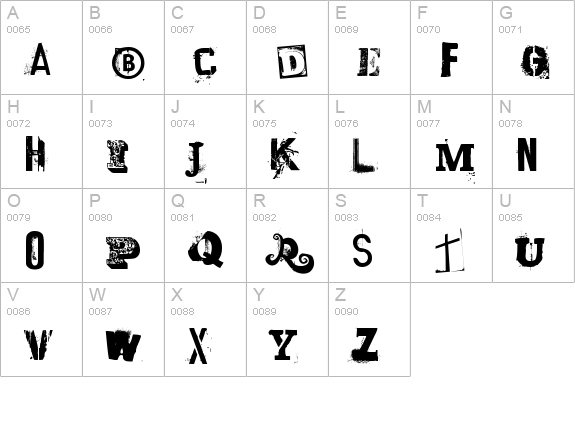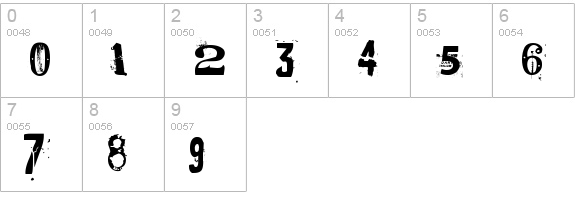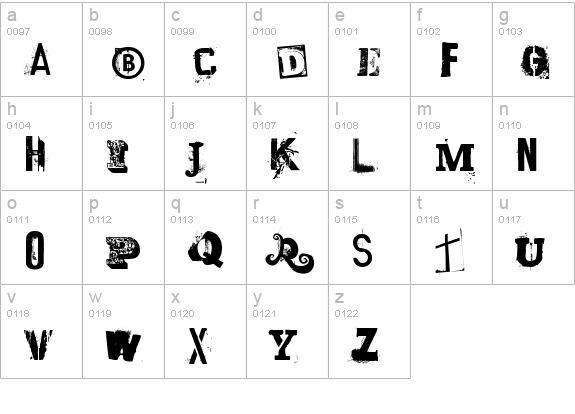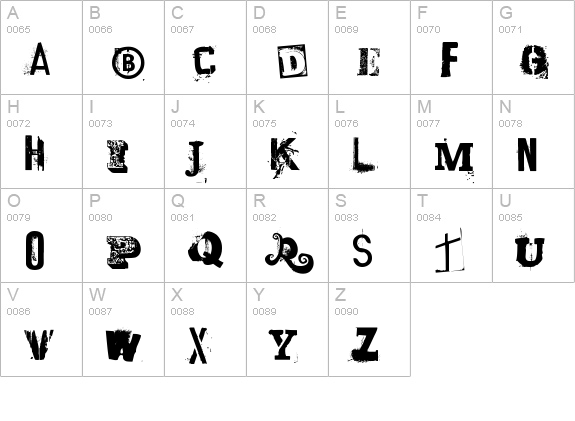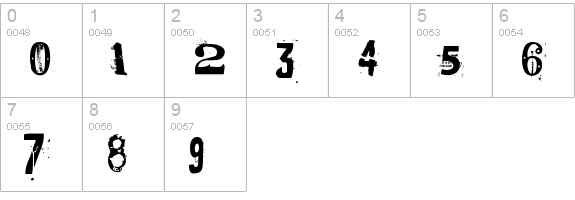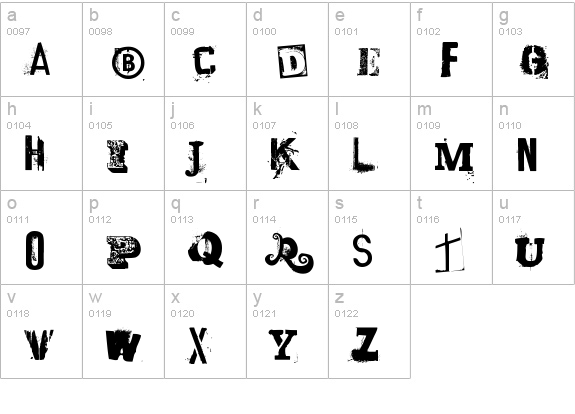
Laundromat 1967 font is a charming and nostalgic typeface that captures the essence of a bygone era. Its retro design and vintage feel make it perfect for adding a touch of old-school flair to your projects. The font features a timeless style with a slightly worn look, giving it character and authenticity. What sets Laundromat 1967 font apart is that it is freely available to download at FontsMarket.com. This means you can easily access this unique typeface and use it in your designs without any cost. Whether you're working on a branding project, poster design, or any other creative endeavor, this font is sure to make a statement and evoke a sense of nostalgia. With its free availability and versatile design, Laundromat 1967 font is a must-have for anyone looking to infuse their work with a touch of vintage charm. Download it today and bring a piece of the past into your designs.